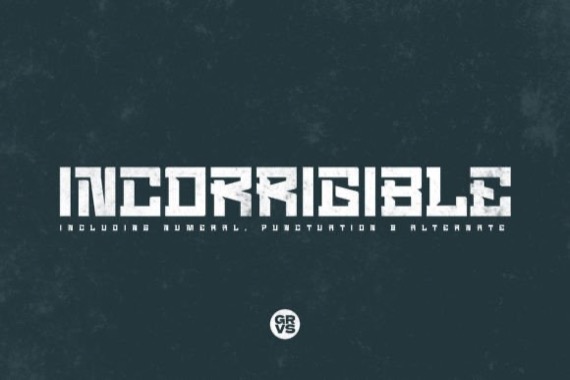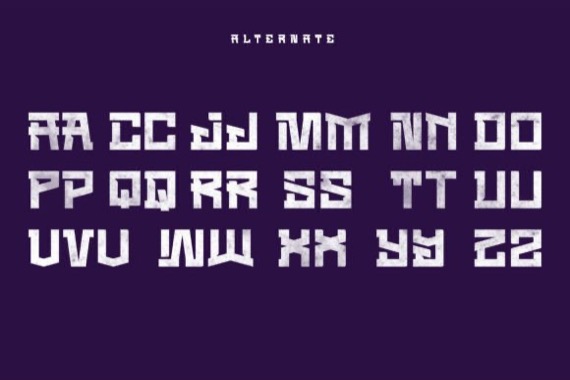
Grvs Incorrigible Font
Introducing a classy and classic display font from Febryan.Satria1, GRVS Incorrigible Modern Sport Font is our new item that is suitable for your business or logo with gaming and sports theme.